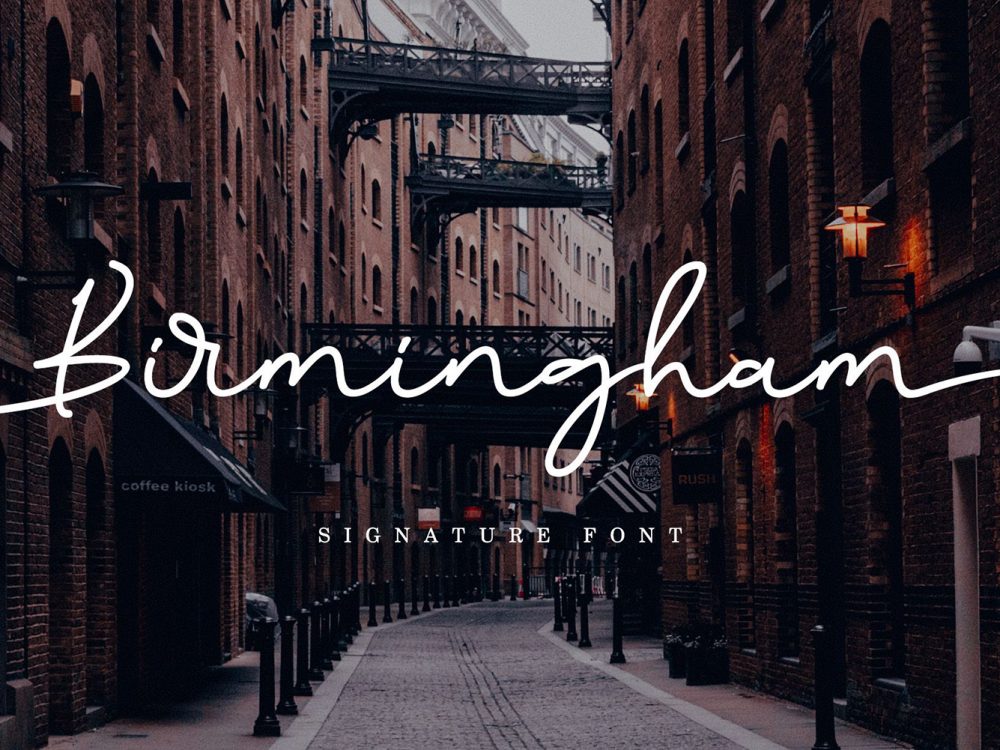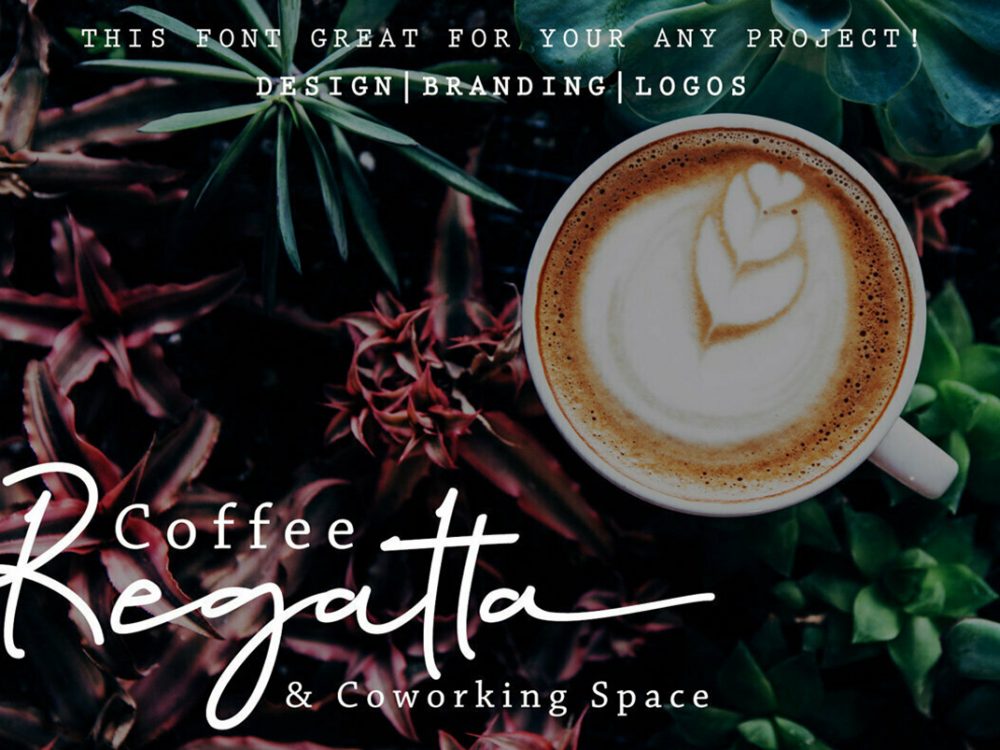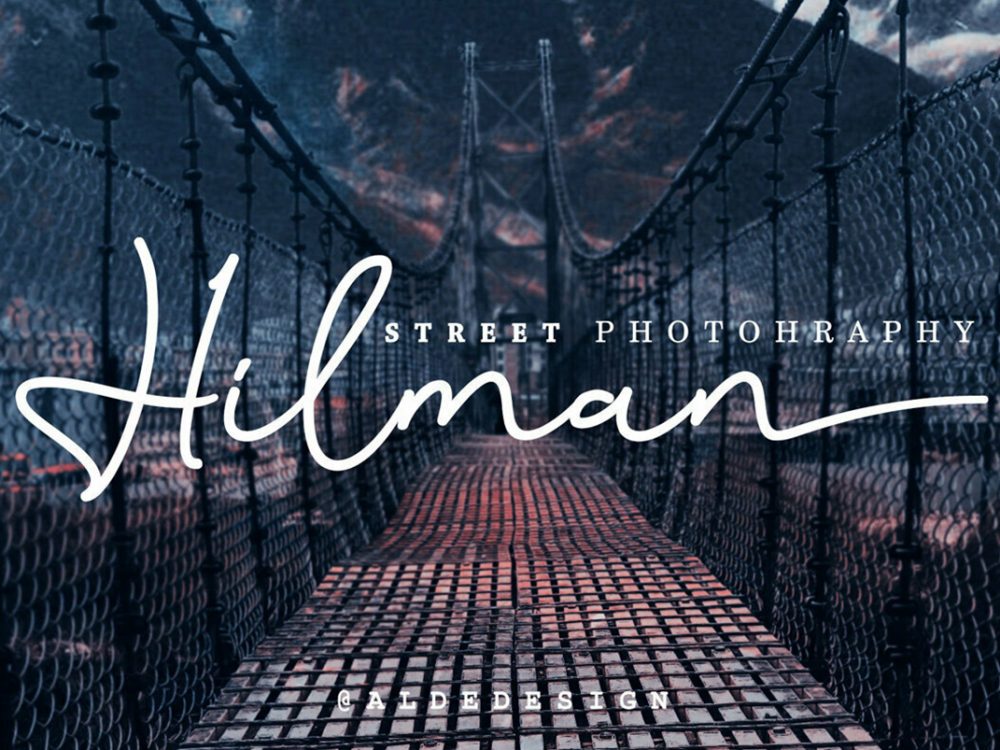
Birmingham Signature Script Font
Birmingham Signature Script Font is a beautiful handwritten font that stands out for its elegant style and stylish lines. You can use this font for many design projects such as wedding cards, invitations, branding, flyers, prints, and more. If you wish to access more features and use them for commercial work please buy the full version.